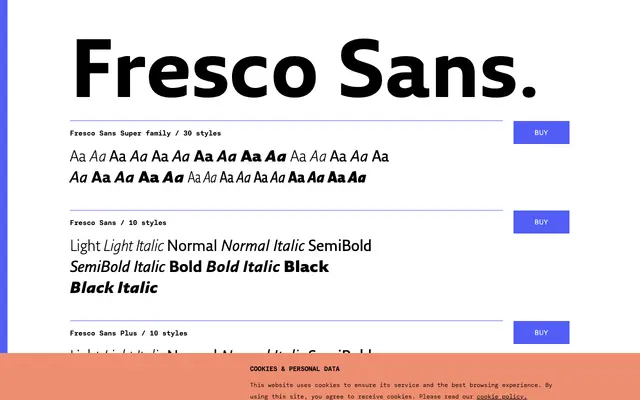
Fresco Sans
A 30-style humanist sans superfamily spanning three sub-families, each in five weights with italics, and a condensed variant for tighter settings.
The family is divided into Fresco Sans, Fresco Sans Plus and Fresco Sans Condensed, each running from Light to Black with matching italics, giving 30 styles in total. OpenType features are well provisioned across most cuts, including small capitals, oldstyle figures, fractions, superscripts and scientific inferiors. The condensed sub-family covers the same weight range with a reduced feature set, making it practical for space-constrained editorial and publication work.
Fresco Sans exhibits humanist sans-serif characteristics with a warm, readable structure across its three sub-families. The range of weights, italics and condensed variants, combined with extensive OpenType features including small caps and oldstyle figures, is consistent with a text-oriented humanist approach.